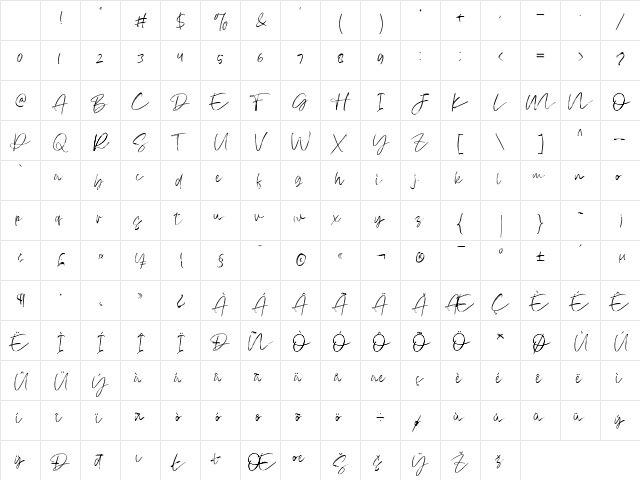
Complete Atkinson Signature Regular glyph index. Displaying only characters natively supported by Atkinson Signature Regular font.
Atkinson Signature is a composed and adaptable typeface that performs quietly and consistently across a wide range of design contexts.